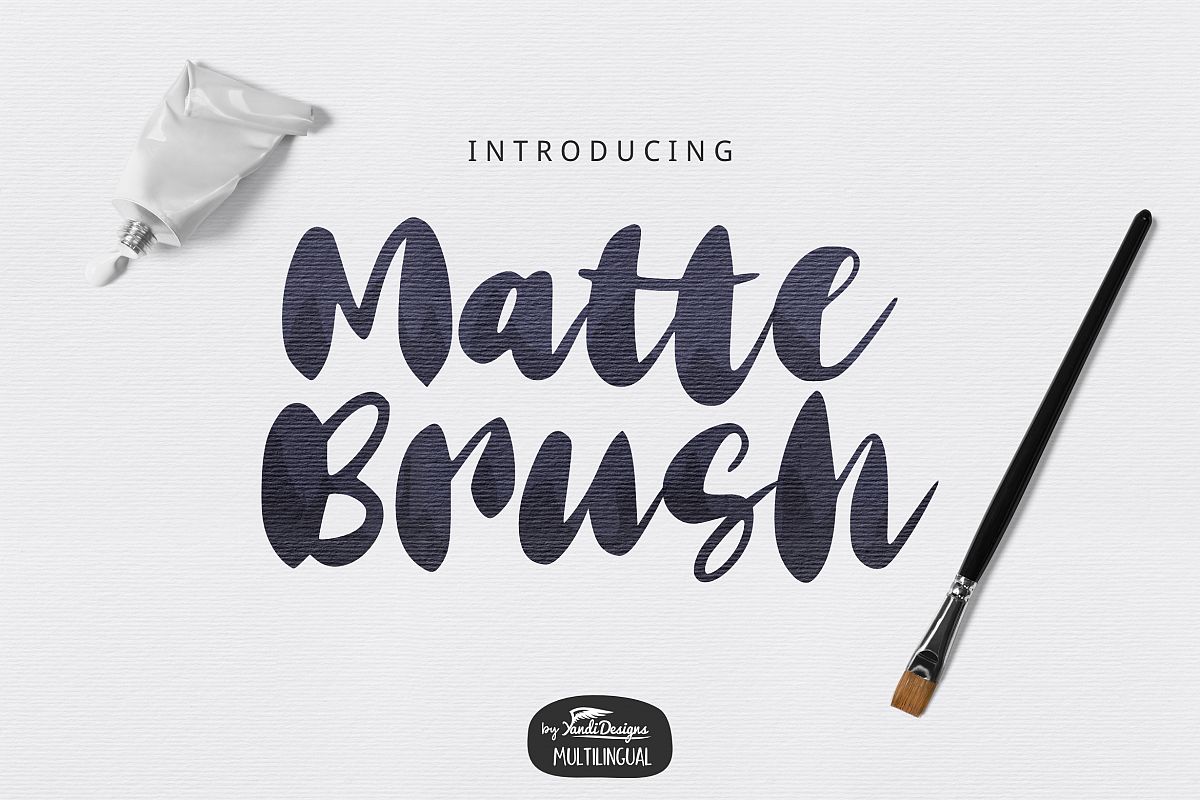
Matte Brush Font
Matte Brush Script Font
Elegant big bold script  font , suitable for many project, signature , quotes, logo , doodle, heading , title etc.